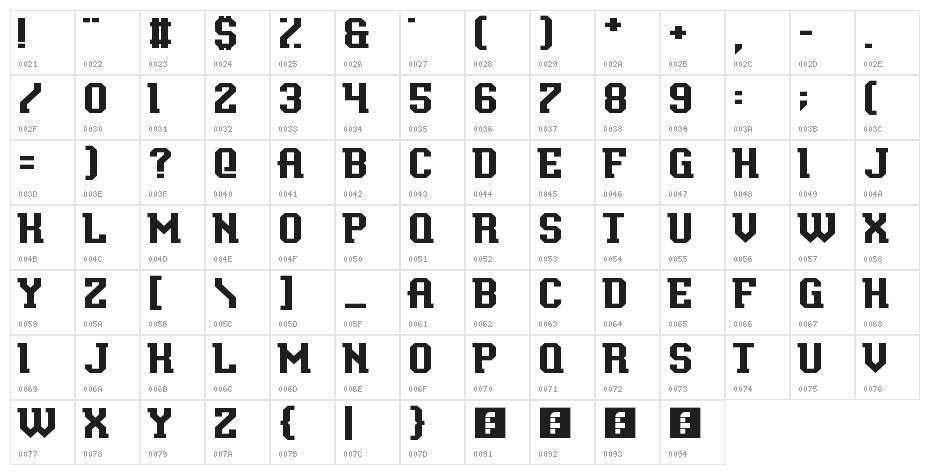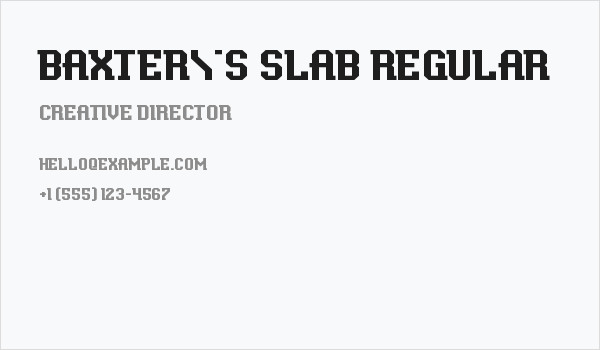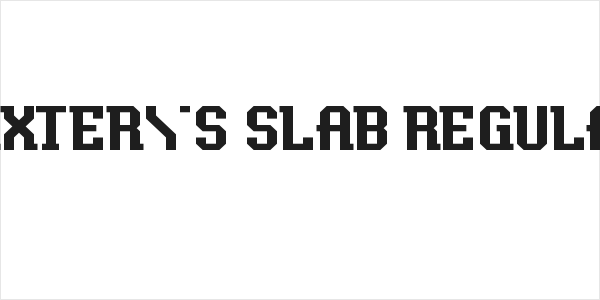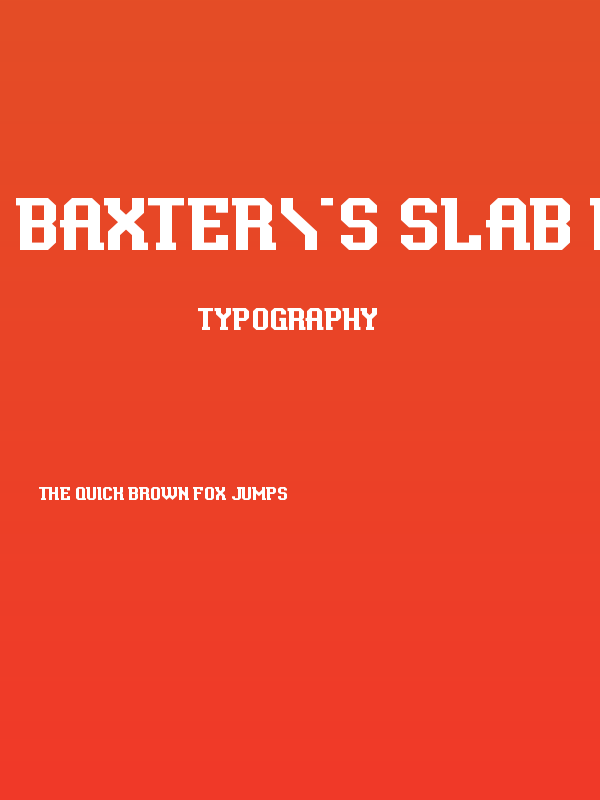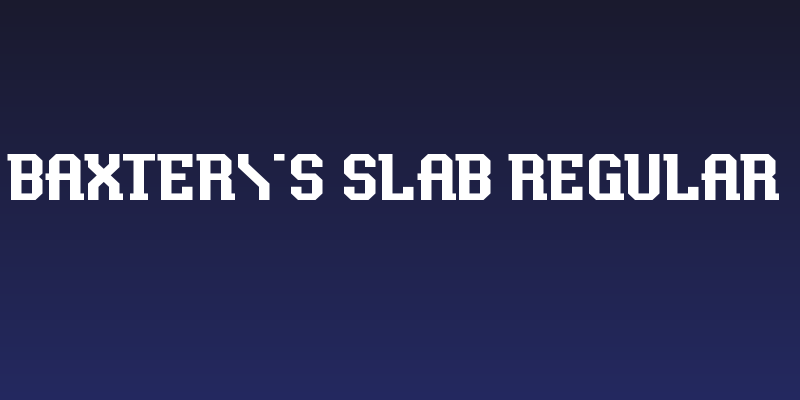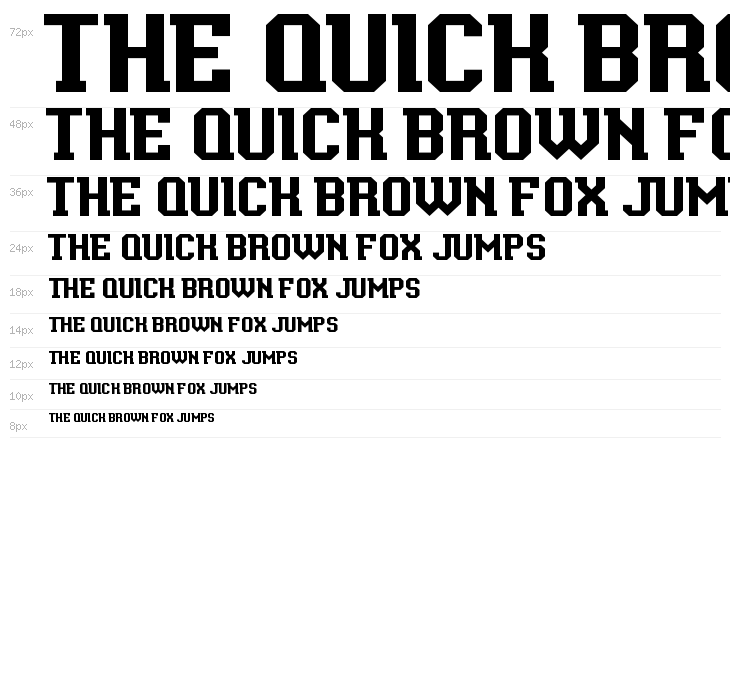
Baxter's Slab Regular Font
Baxter's Slab Regular Description
This font features a bold and robust slab serif design, characterized by thick, block-like serifs and strong vertical lines. The uppercase and lowercase letters maintain a consistent weight, providing a uniform appearance across the typeface. The numerals and special characters are designed to match the boldness of the alphabet, ensuring a cohesive look. The font's geometric structure and solid presence make it ideal for impactful designs, offering a modern twist on traditional serif styles.
| Proposed Projects | Ideal for branding, headlines, posters, and any design requiring a strong, impactful typeface. |